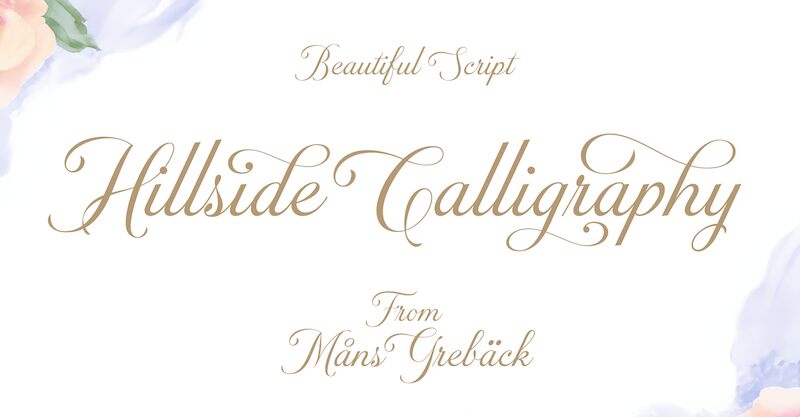
Hillside Swashed PERSONAL USE Regular
Hillside Swashed font is a romantic calligraphic masterpiece designed by Mans Grebäck. Inspired by classic penmanship and ornate wedding invitations, this free calligraphy font exhibits a ceremonial tone with dramatic loops and swashes balanced by grounded soft lines in its lowercase letters. A perfect example of elegance, sophistication, and formal aesthetic intertwined together.